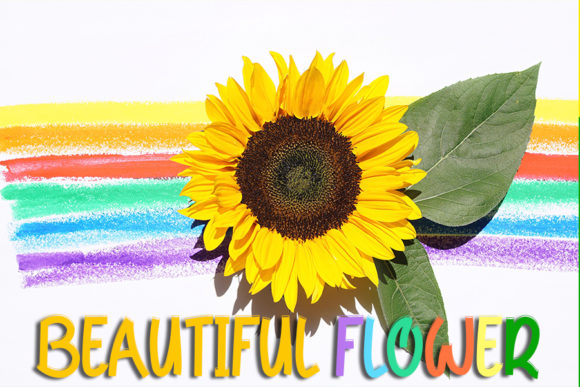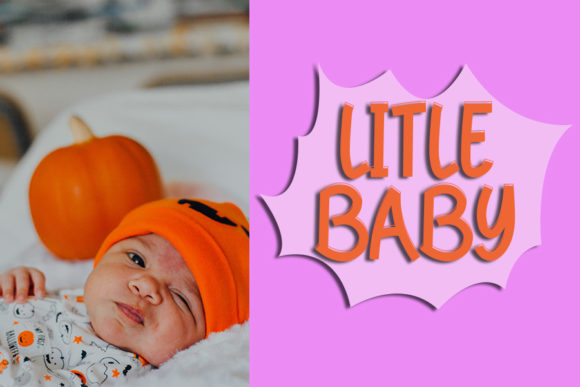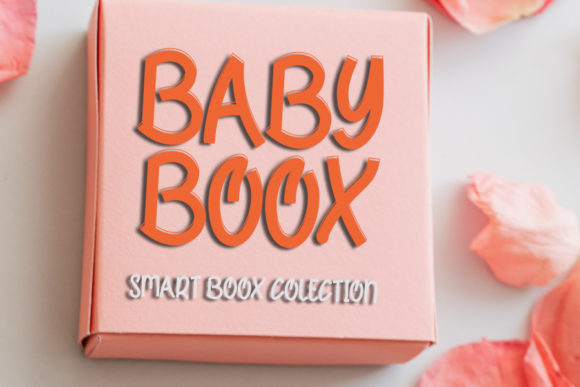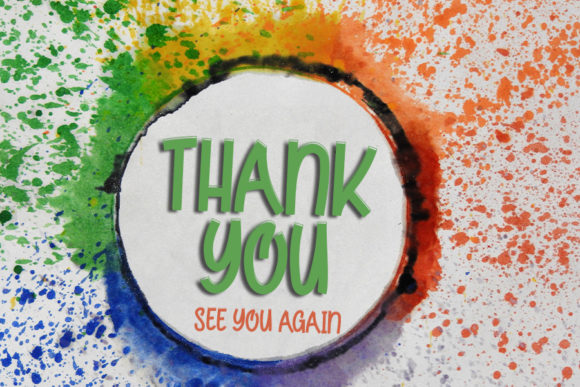
Bright Rainbow Font: Add a Pop of Color to Your Designs
Are you tired of using the same old fonts in your designs? Do you want to add a touch of fun and playfulness to your projects? Look no further than the Bright Rainbow Font! This vibrant and energetic display font is perfect for designers and crafters who want to make their designs stand out from the crowd.
What is Bright Rainbow Font?
Bright Rainbow is a playful and bright display font that is sure to make each of your designs come to life. With its bold and colorful letters, this font is perfect for adding a pop of color and fun to any project. Whether you’re working on a graphic design, crafting a party invitation, or creating a social media post, Bright Rainbow Font is the perfect choice.
Features of Bright Rainbow Font
- Playful and Bright: Bright Rainbow Font is a playful and bright display font that is sure to add a touch of fun to your designs.
- Bold and Colorful: With its bold and colorful letters, this font is perfect for making a statement in your designs.
- Easy to Read: Despite its playful and decorative nature, Bright Rainbow Font is easy to read and understand, making it perfect for use in a variety of projects.
- Versatile: Bright Rainbow Font can be used in a variety of projects, from graphic design and crafting to social media and party invitations.
Uses for Bright Rainbow Font
Bright Rainbow Font is a versatile font that can be used in a variety of projects, including:
- Graphic Design: Use Bright Rainbow Font to add a pop of color and fun to your graphic designs, such as brochures, flyers, and posters.
- Crafting: Bright Rainbow Font is perfect for crafters who want to add a personal touch to their projects, such as party invitations, scrapbooking, and card making.
- Social Media: Use Bright Rainbow Font to make your social media posts stand out from the crowd and grab the attention of your followers.
- Party Invitations: Bright Rainbow Font is perfect for creating fun and playful party invitations that will get your guests excited for the big day.
Tips for Using Bright Rainbow Font
Here are a few tips for using Bright Rainbow Font in your designs:
- Use it Sparingly: While Bright Rainbow Font is a fun and playful font, it can be overwhelming if used too much. Use it sparingly to add a pop of color and fun to your designs.
- Pair it with a Neutral Font: Pair Bright Rainbow Font with a neutral font to create contrast and make your designs more visually appealing.
- Experiment with Colors: Bright Rainbow Font comes in a variety of colors, so don’t be afraid to experiment and find the perfect color for your design.
Bright Rainbow Font is a playful and bright display font that is sure to add a touch of fun and playfulness to your designs. With its bold and colorful letters, this font is perfect for making a statement in your graphic designs, crafting projects, social media posts, and party invitations. So why settle for a boring and ordinary font when you can use Bright Rainbow Font to make your designs come to life?